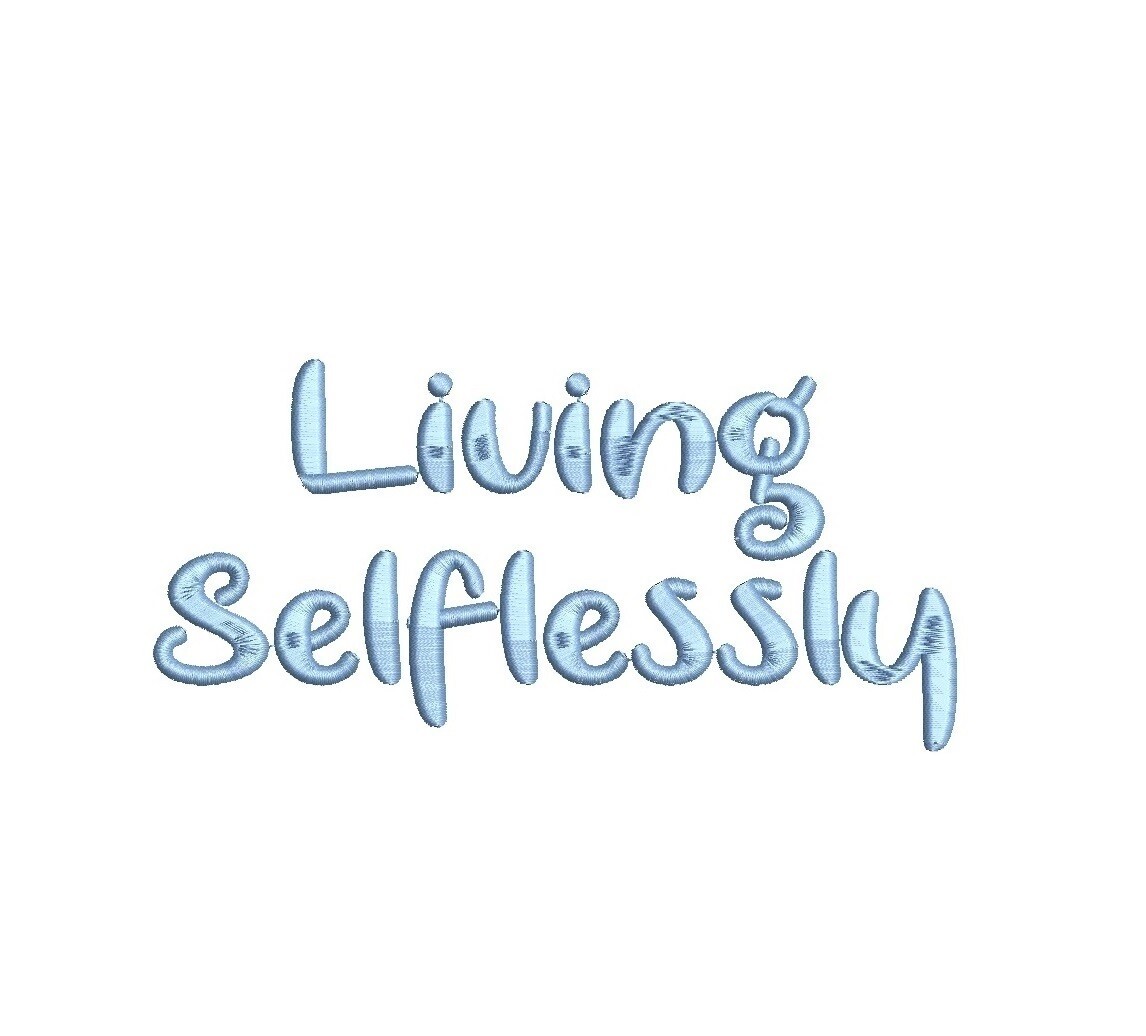
Embrace selflessness with the inspiring Living Selflessly Regular ESA font, a meaningful choice for your embroidery designs. Infused with compassion, this font exudes empathy and grace. Compatible with Wilcom Studio e4.5.6 and Hatch 3 versions and up, it seamlessly integrates into your digitization process. Craft heartfelt monograms, logos, and decorative accents effortlessly, spreading kindness through your creations. Elevate your embroidery projects with a touch of altruism and make them truly impactful. Don't miss the chance to embody selflessness in every stitch with the Living Selflessly Regular ESA font. Experience the beauty of compassion in your designs today!